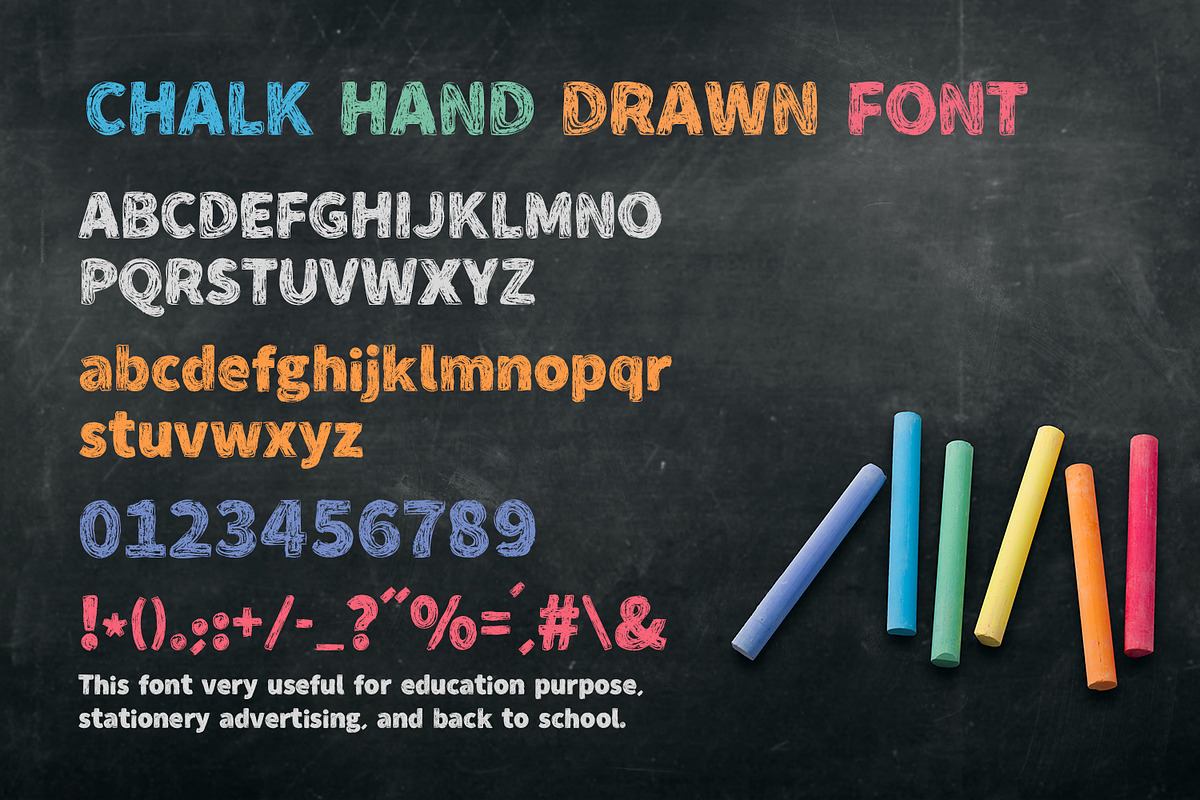
Chalk Hand Drawn Font Free Download is a playful, textured typeface that perfectly captures the nostalgic charm of chalkboard lettering. With its rough edges, handcrafted feel, and casual personality, this font is ideal for café menus, school projects, children’s books, signage, packaging, and any design that needs a fun, friendly, and informal touch.
Designed to mimic real chalk on a blackboard, Chalk Hand Drawn Font Free Download adds an authentic and creative flair to your typography. It’s especially great for designs that want to feel personal, hand-made, or classroom-inspired.
This font pairs well with doodles, illustrations, or colorful backgrounds, and works beautifully in both print and digital formats. Whether you’re creating playful branding or themed social media content, Chalk Hand Drawn helps bring your ideas to life with character and charm.